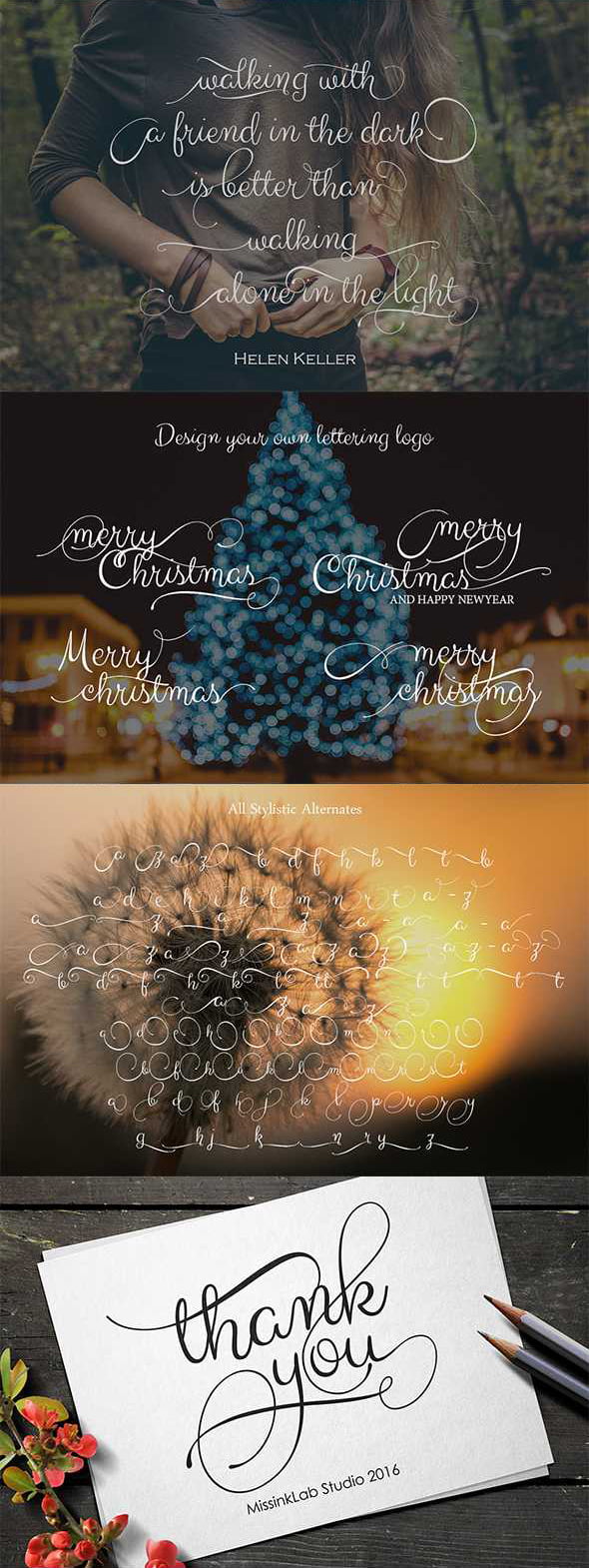
Martila Script Font
Introducing Martila, is a calligraphy wavy, modern and clasik, so soft. This font Suitable for any project products, such as wedding invitations, greeting cards, design of water-based paints, correspondence, quotes, logo, blog header, poster, banding, fashion, apparel, letter, invitation, stationery, etc. This font multiple international language support.